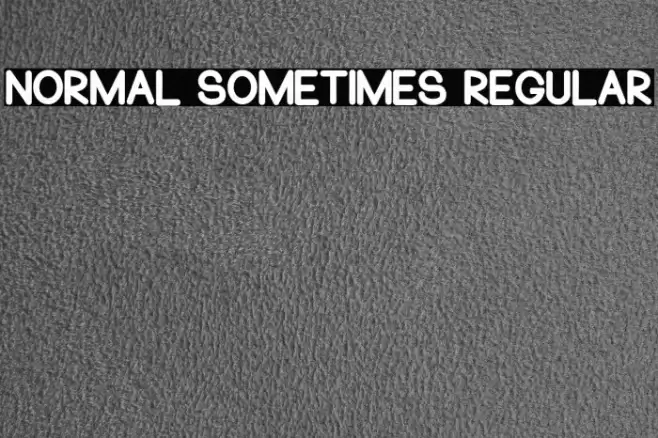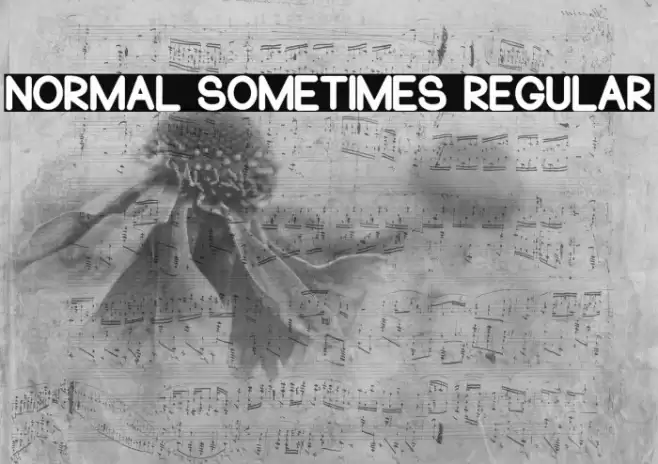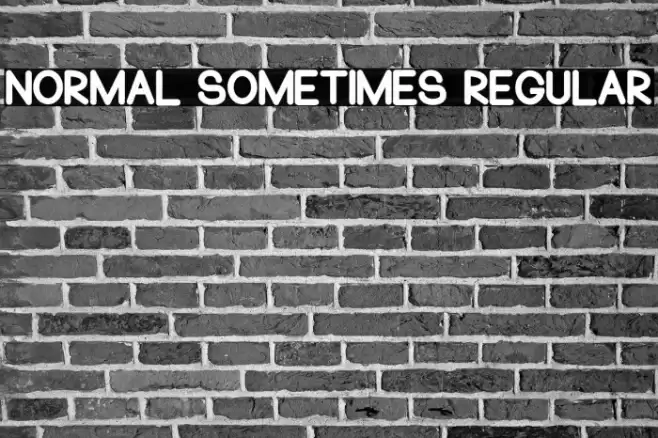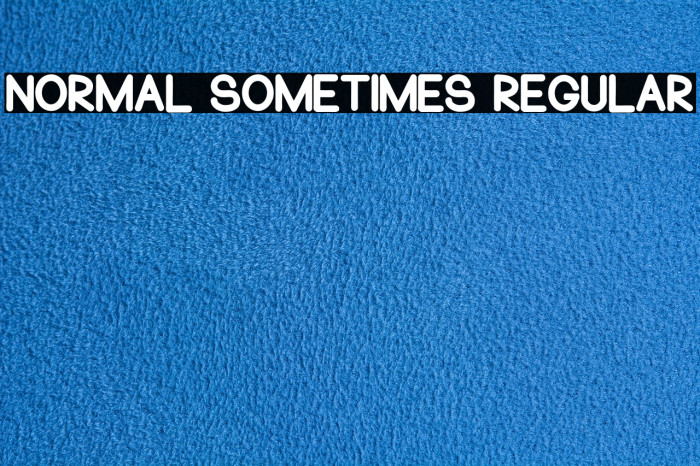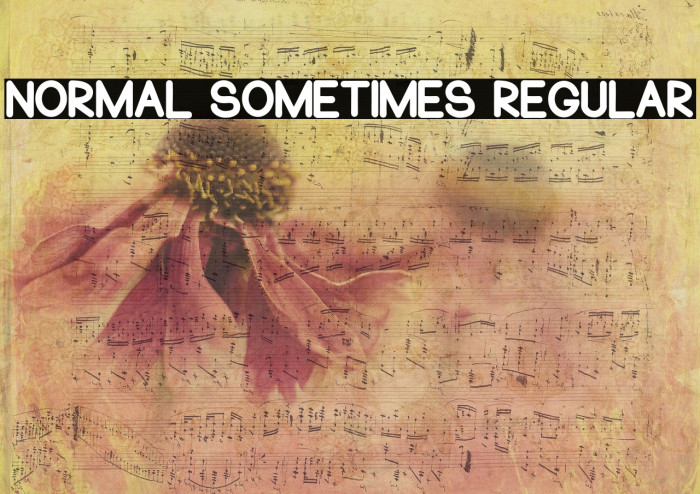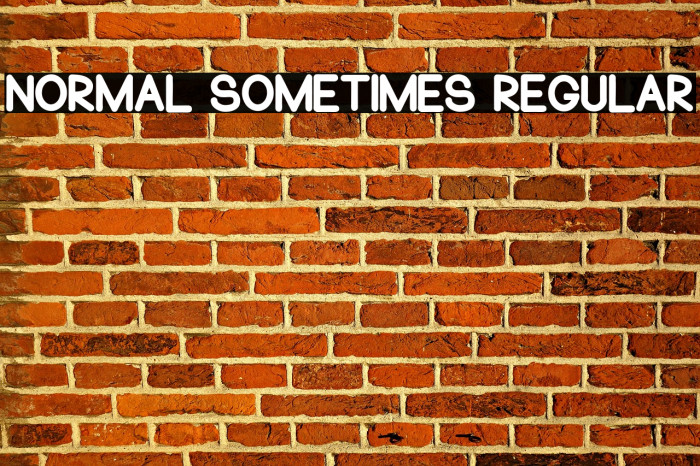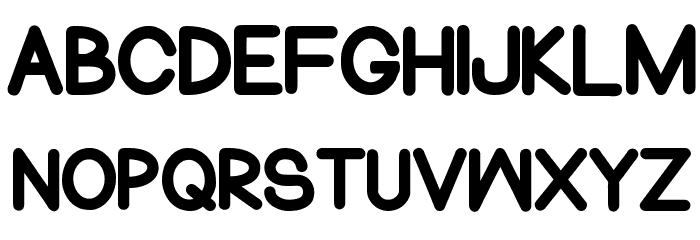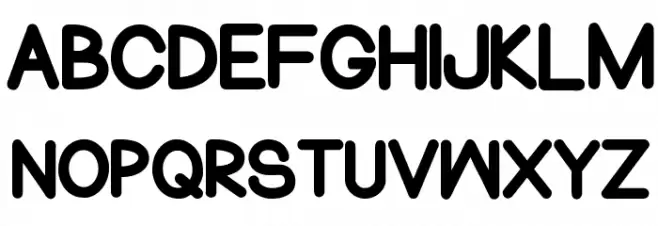
Normal Sometimes Regular Font
Normal Sometimes Regular Description
This font features a bold and rounded style, characterized by its thick, uniform strokes and smooth curves. The letters are evenly spaced, providing a clean and modern appearance. The uppercase and lowercase letters maintain a consistent width, contributing to a cohesive look. The numbers and special characters follow the same design principles, ensuring a harmonious overall aesthetic. This font is highly legible and versatile, making it suitable for a variety of design applications.
A bold, rounded font with smooth curves and uniform strokes from Uncategorized fonts.
- Proposed Projects: Ideal for branding, advertising, headlines, and digital media where a modern and approachable look is desired.
- Use Case: Headlines, Logos, Branding